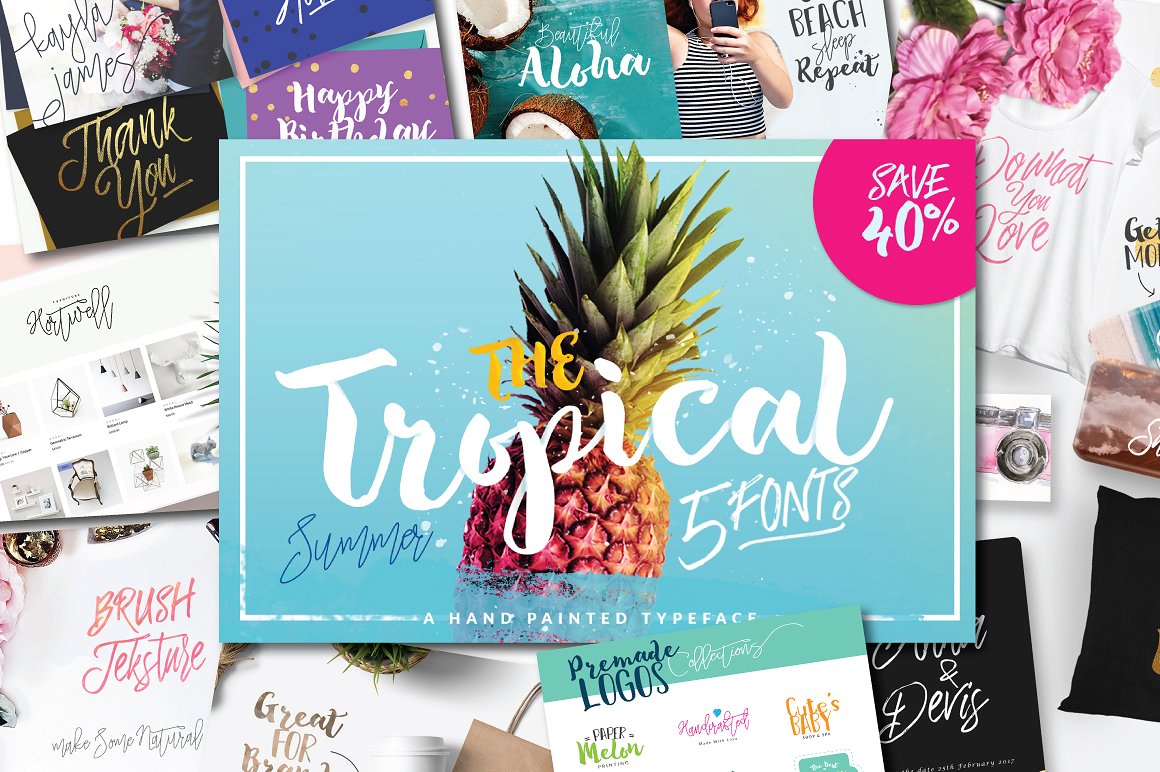
The Tropical Typeface
Introducing The Tropical 5 Fonts – with bonuses! ! A fontastic set of carefully-paired, handcrafted fonts, designed to work together in harmony to create awesome hand-lettered typographic designs. Awesome for designing book covers, film covers, apparel, cards, logos, posters, etc. Opentype features gives you more alternatives in designing.